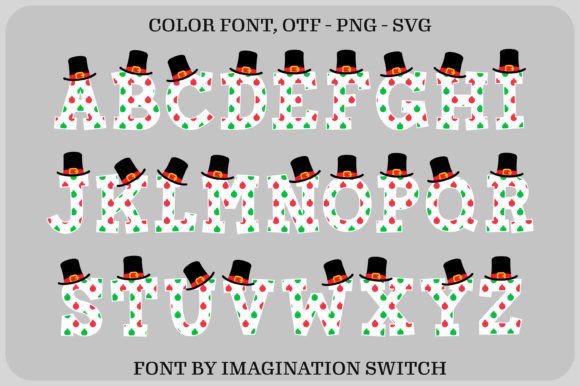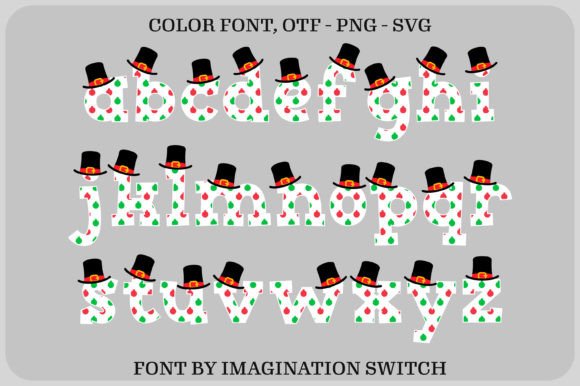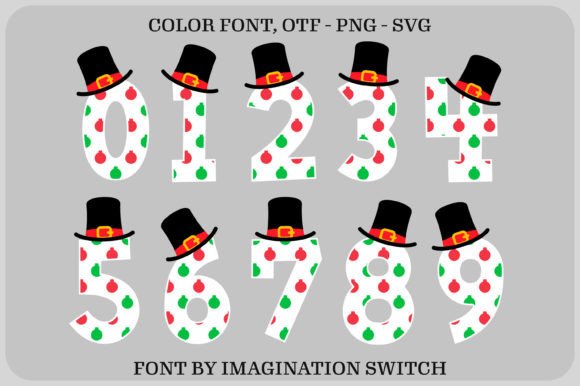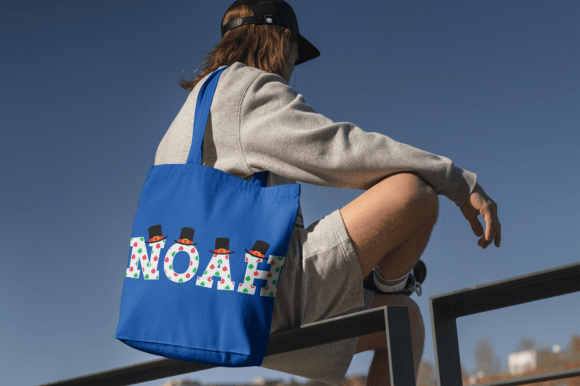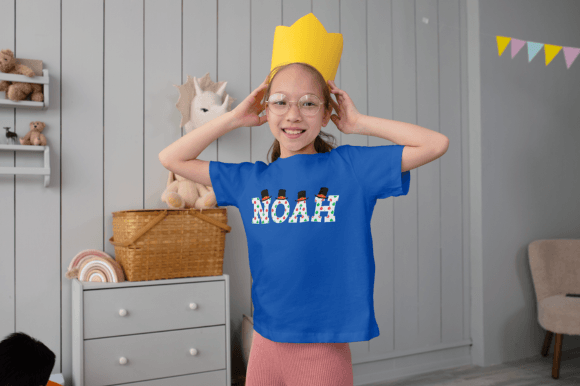
Introducing the Enchanting Christmas Party Font: Elevate Your Designs with Vibrant Colors
Are you looking for a font that adds a touch of magic to your designs? Look no further than the Christmas Party Font, a captivating typographic creation that utilizes intriguing colors to enhance its visual appeal. This font is a game-changer for designers and crafters seeking to infuse their projects with uniqueness and creativity.
A Comprehensive Character Set for Endless Possibilities
The Christmas Party Font boasts a complete set of characters, including uppercase, lowercase, and numbers, meticulously designed to provide flexibility across various types of projects. Whether you’re working on print designs, web designs, promotional materials, or more, this font has got you covered. Its excellent legibility and visually appealing presentation make it an ideal choice for enhancing the visualization of your message.
Unleash Your Creativity with Unique Color Choices
What sets the Christmas Party Font apart is its carefully chosen colors for each character, adding a mesmerizing visual touch that makes each word and number stand out. This font allows you to express your creativity in every project you undertake, crafting unforgettable designs with a unique color touch. Imagine being able to add a pop of color to your designs, making them more engaging and attention-grabbing.
Versatility at Its Best: Suitable for Various Applications
The Christmas Party Font is suitable for a wide range of purposes, including:
- Print designs: Perfect for creating eye-catching posters, flyers, and brochures.
- Web designs: Enhance your website’s typography with a unique and colorful font.
- Promotional materials: Make your brand stand out with colorful business cards, banners, and more.
- Cricut Design Space and other cutting machines: The black version of this font is compatible, making it ideal for crafters and makers.
Bring Your Designs to Life with the Christmas Party Font
With the Christmas Party Font, you can:
- Create stunning holiday-themed designs for Christmas parties, invitations, and decorations.
- Develop eye-catching branding materials, such as logos, business cards, and letterheads.
- Design engaging social media graphics, blog posts, and website content.
- Craft unique and colorful crafts, such as vinyl decals, iron-on designs, and paper crafts.
The Christmas Party Font is a versatile and captivating typographic creation that can elevate your designs to the next level. With its unique color choices, comprehensive character set, and compatibility with various applications, this font is perfect for designers, crafters, and makers seeking to add a touch of magic to their projects. Get ready to unleash your creativity and craft unforgettable designs with the Christmas Party Font!